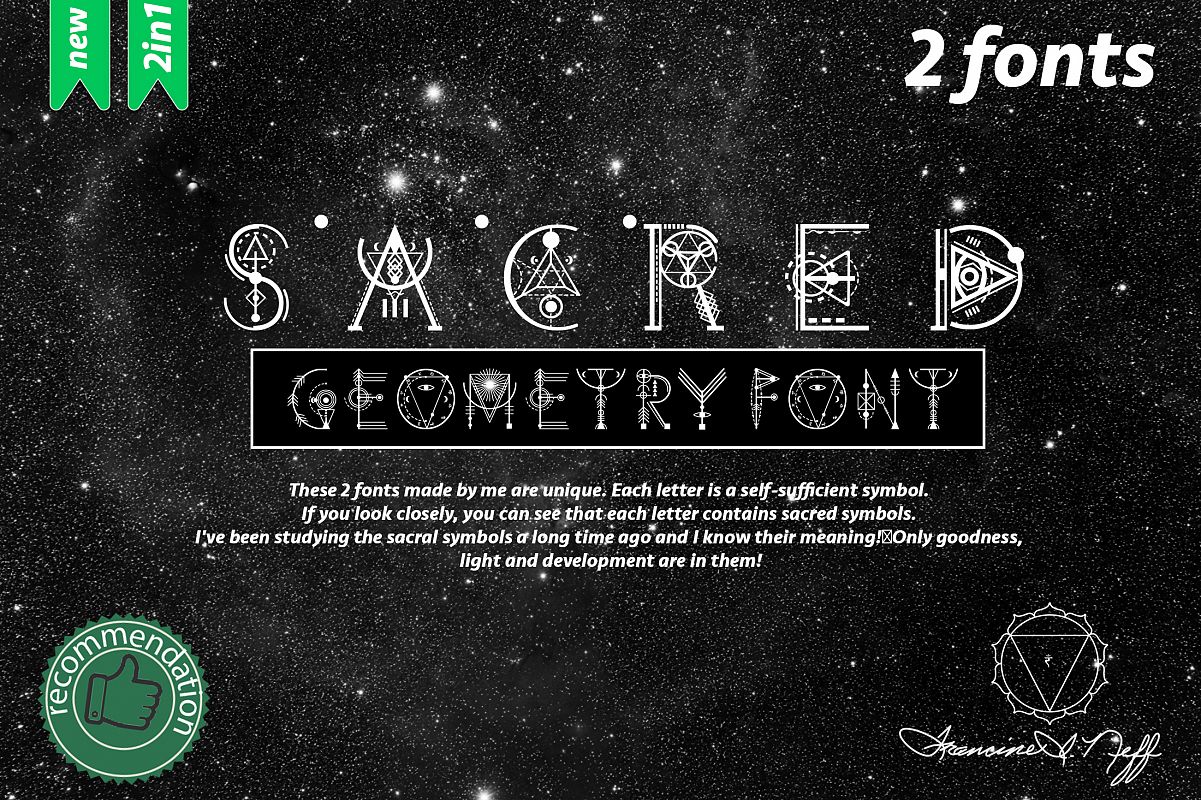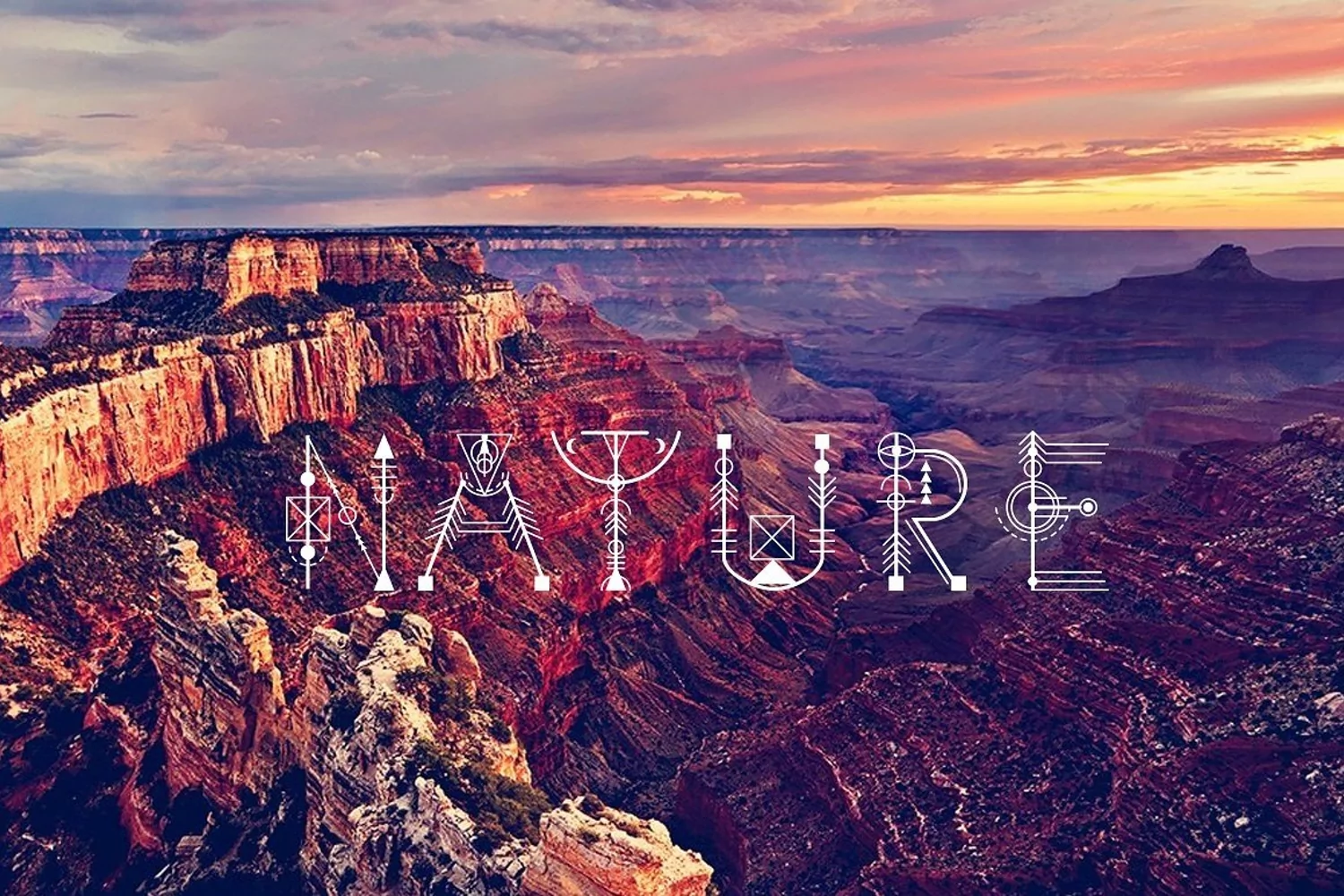
Sacred's fonts Bundle
These 2 fonts made by me are unique. Each letter is a self-sufficient symbol. If you look closely, you can see that each letter contains sacred symbols. I've been studying the sacral symbols a long time ago and I know their meaning!Only goodness, light and development are in them!